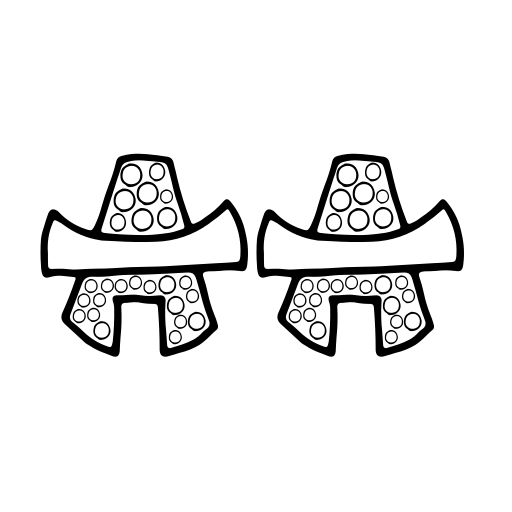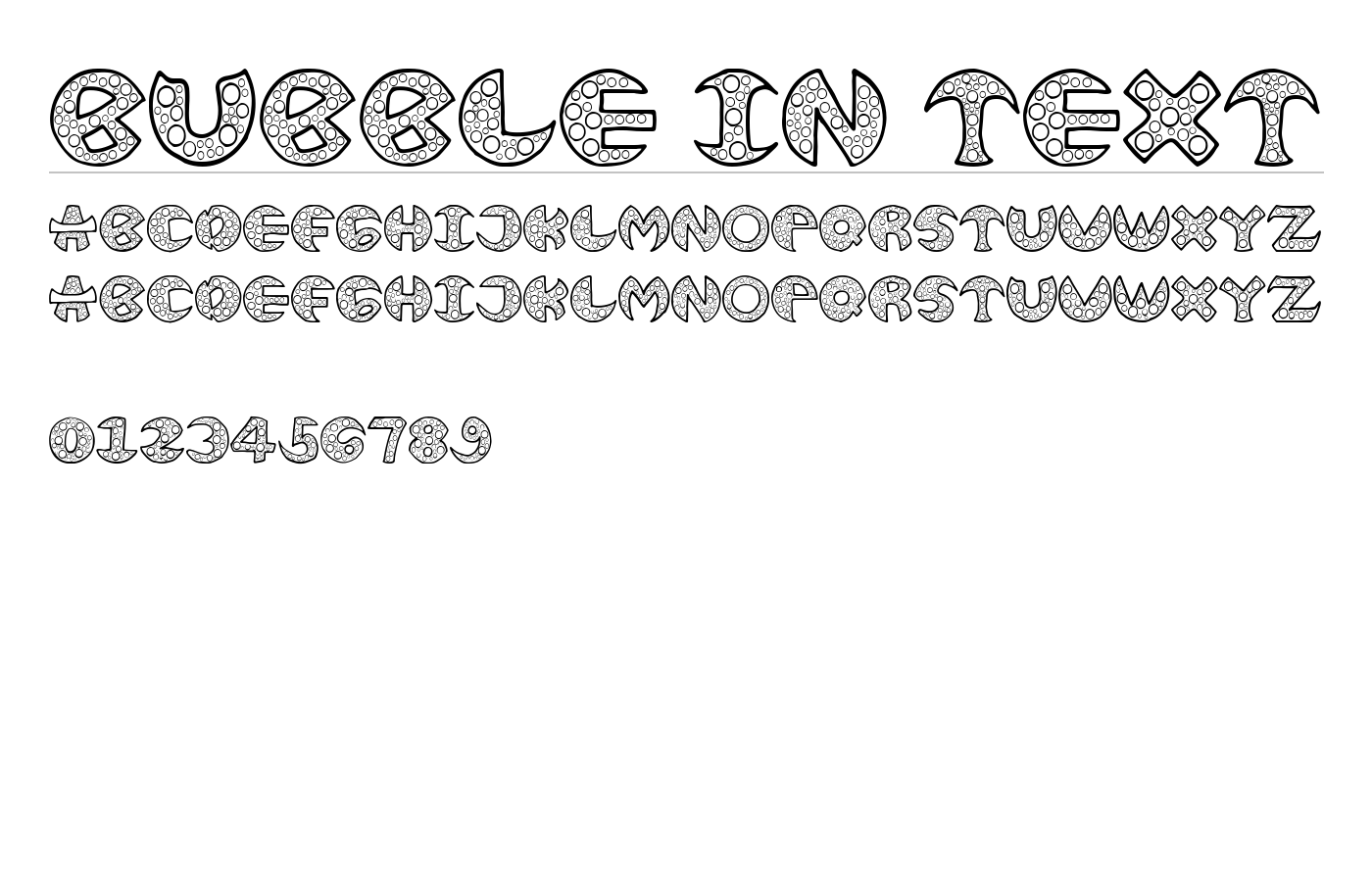
Bubble In Text is a playful and whimsical decorative font characterized by bold, rounded letterforms filled with variously sized circular bubble patterns. Its thick strokes, irregular shapes, and fun texture create a lively, casual feel perfect for children’s materials, party invitations, and creative branding that aims to be approachable and lighthearted. This font shines in headlines, posters, and any design needing an eye-catching, joyful touch.
BUBBLE IN TEXT Font
About BUBBLE IN TEXT Font
| Font family | BUBBLE IN TEXT Font |
| Designer | Oziel89 Studio |